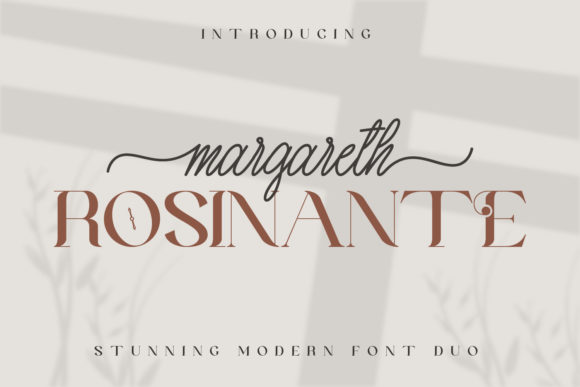
Introducing Margareth Rosinante Duo, the font that will transform your modern website designs into captivating masterpieces. This enchanting duo, consisting of a sophisticated serif and an elegant script, offers endless possibilities for expressing your creativity. Prepare to be mesmerized as you witness your designs transcend the ordinary and embrace the extraordinary.
Margareth Rosinante Duo is meticulously crafted to elevate every aspect of your website, from headers to body text. Its versatility knows no bounds, seamlessly adapting to a multitude of design aesthetics. Whether you seek a classic and timeless look or a bold and contemporary statement, this font duo has you covered.
Effortlessly versatile, Margareth Rosinante Duo empowers you to craft designs that leave a lasting impression. Its playful and charming script lends a touch of whimsy, while the sophisticated serif provides a foundation of elegance. Together, they create a harmonious balance that will make your website stand out from the crowd.
With Margareth Rosinante Duo, you gain the power to unleash your creativity and design websites that captivate and inspire. Its intuitive PUA encoding grants you effortless access to a treasure trove of glyphs and swashes, allowing you to add intricate details and flourishes to your designs with unparalleled ease.
Don't settle for ordinary fonts that blend into the background. Embrace the power of Margareth Rosinante Duo and watch your website designs soar to new heights of brilliance. Let this exceptional font duo ignite your creativity and ignite the imaginations of your visitors.
Experience the transformative power of Margareth Rosinante Duo today and elevate your modern website designs to unparalleled levels of excellence.